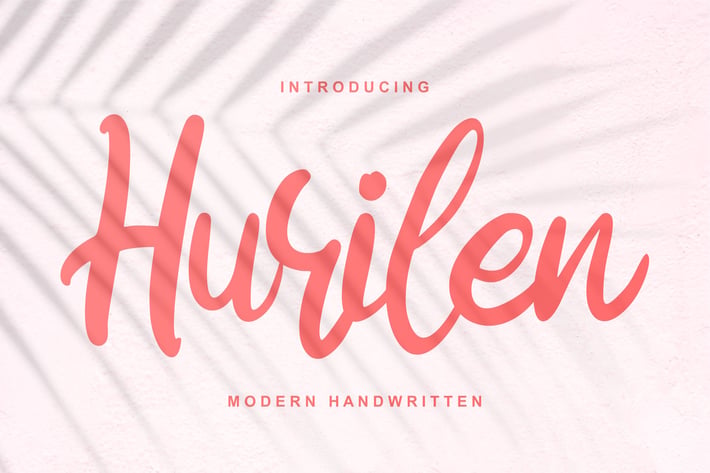
Hurilen | Modern Handwritten Script Font
Hurilen | Modern Handwritten Script Font with a calligraphy style, So beautiful on invitation like greeting cards, branding materials, business cards, quotes, posters, and more!